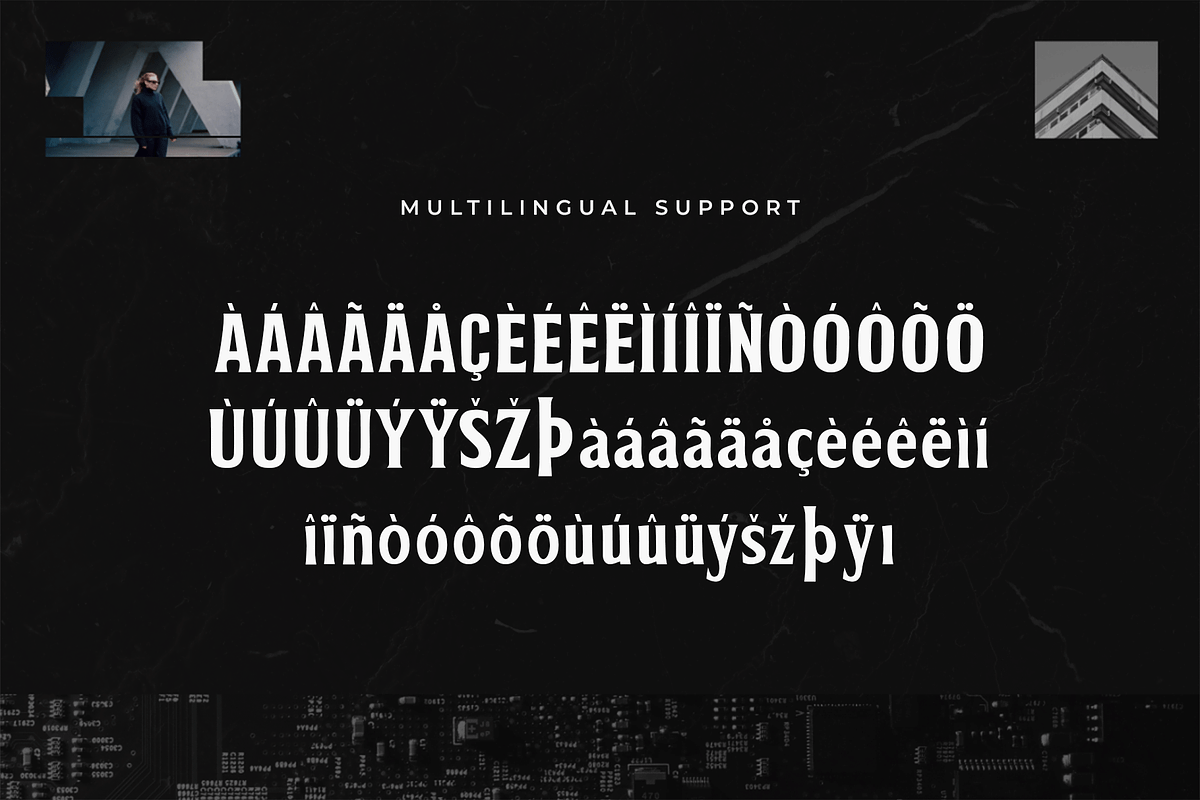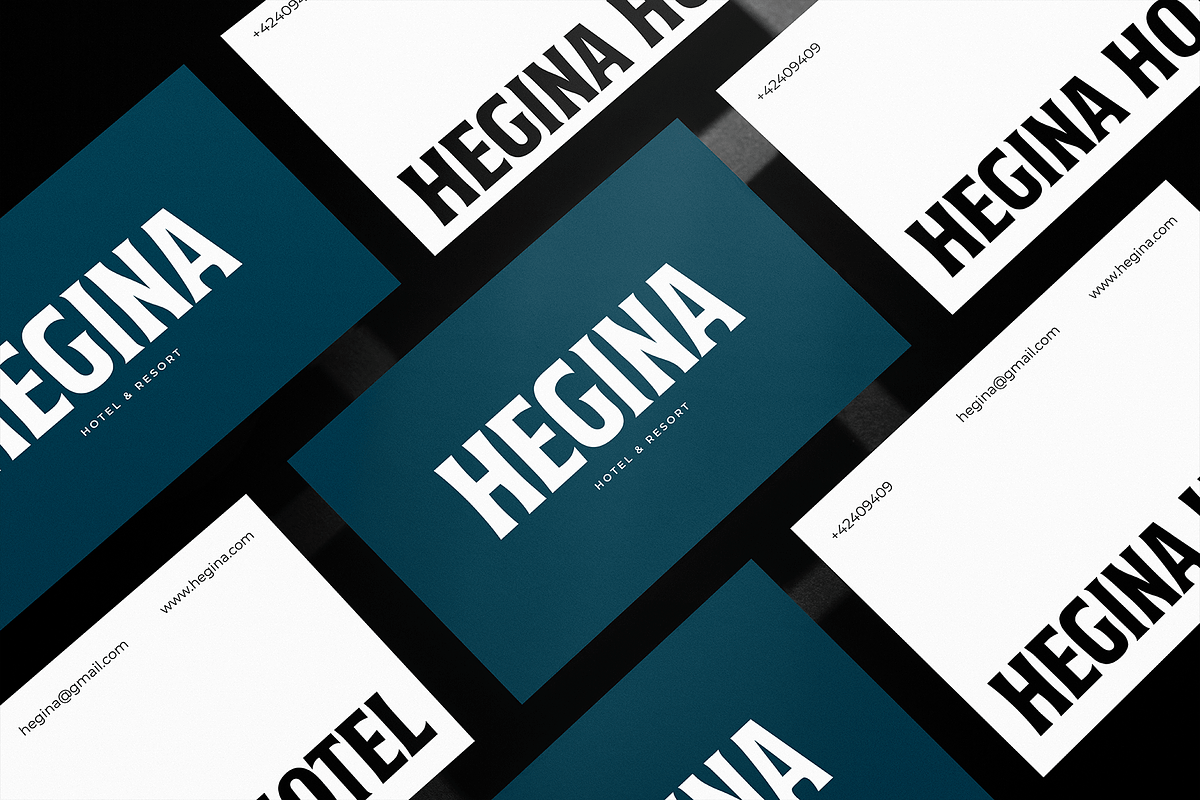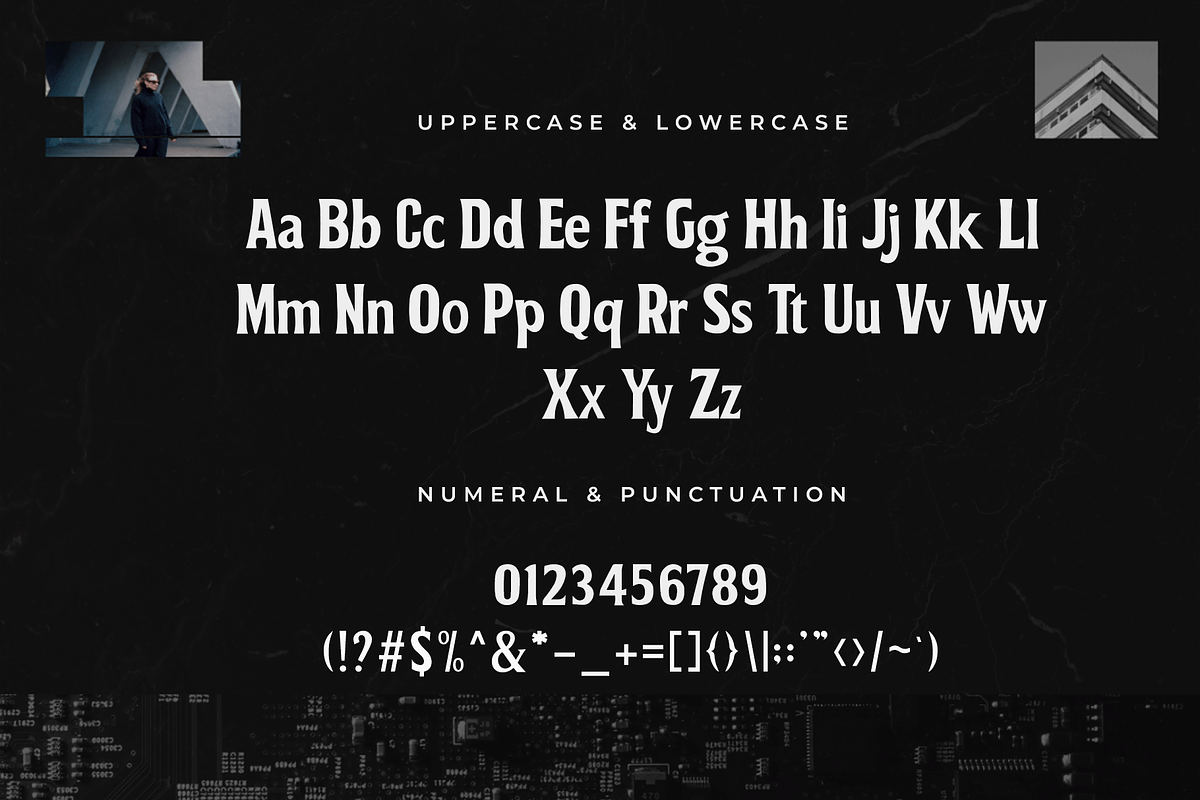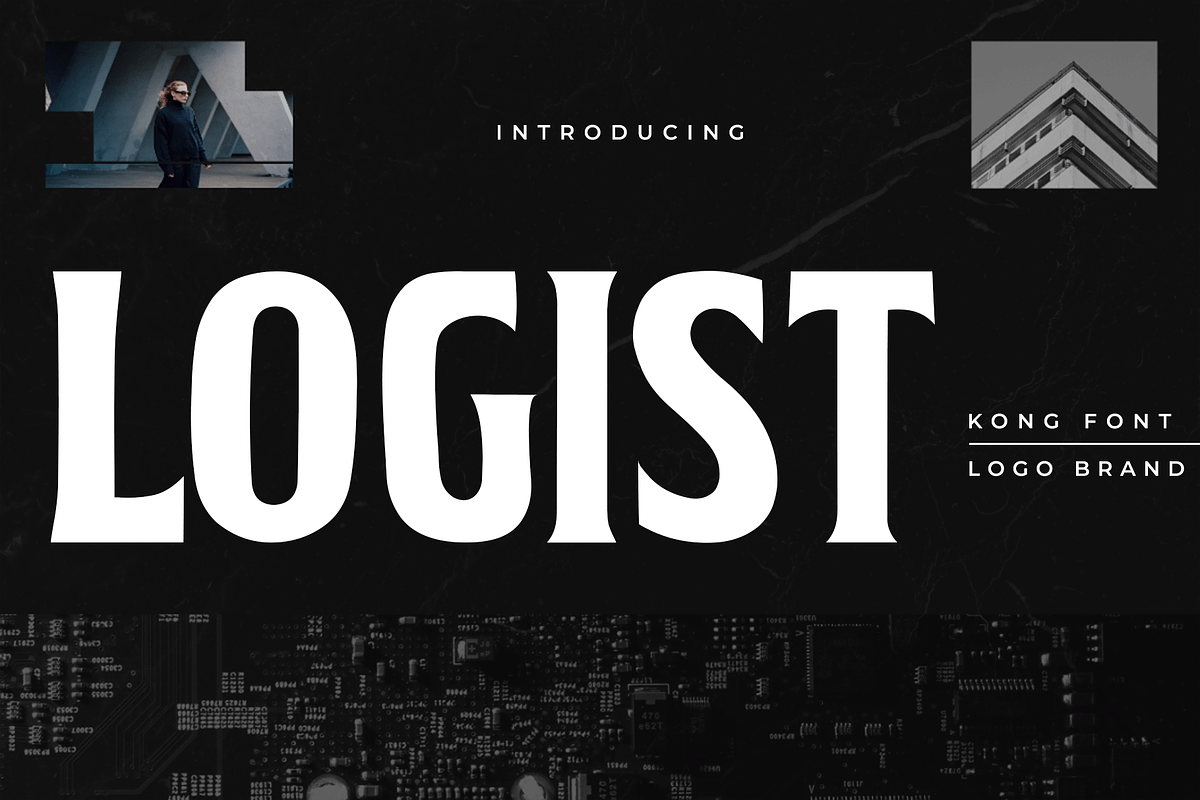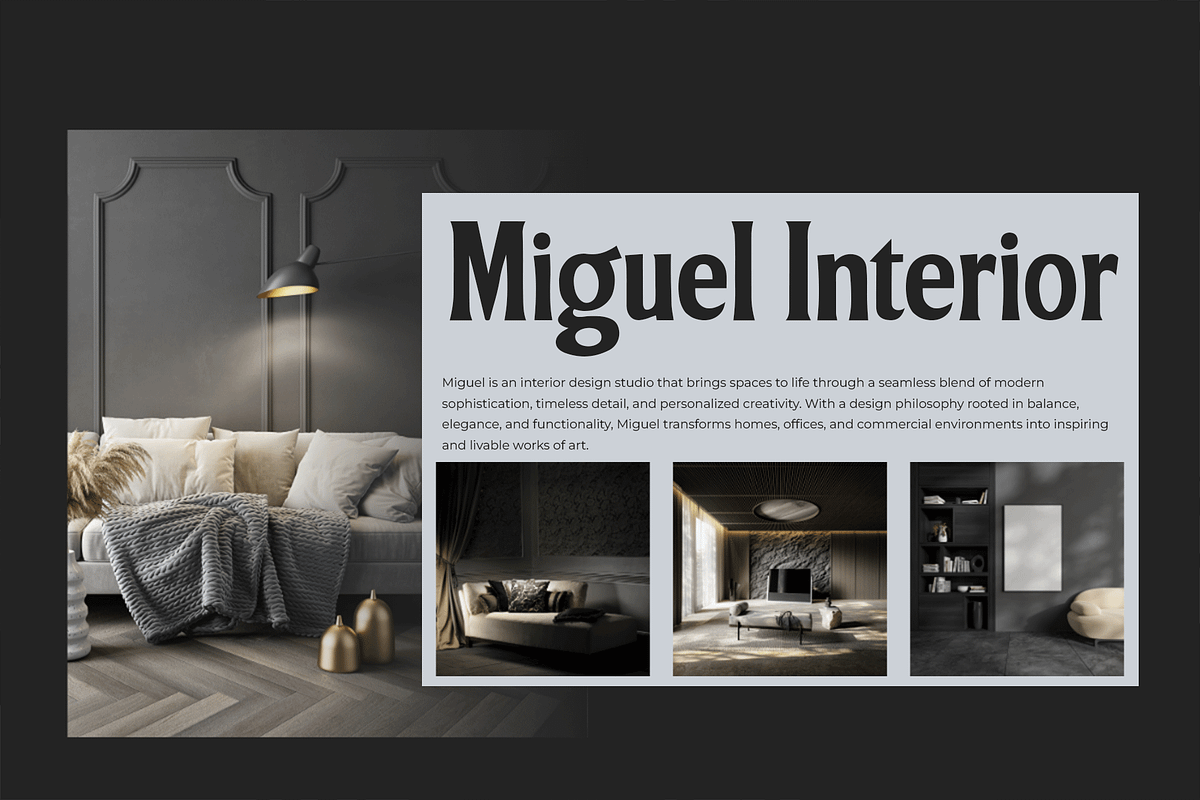
Logist – A Modern Logo Brand Font
Introducing Logist, a clean and modern logo brand font designed to give your visual identity a professional and memorable presence. With sleek letterforms, minimalistic structure, and perfect balance, Logist is tailored for high-impact branding that leaves a lasting impression.
Whether you're designing logos, business cards, product packaging, or marketing materials, Logist brings a refined look that communicates clarity, strength, and sophistication. Its versatile style makes it suitable for tech startups, fashion brands, creative studios, and more.
Build bold, recognizable branding effortlessly with Logist the ultimate font for modern visual identities.